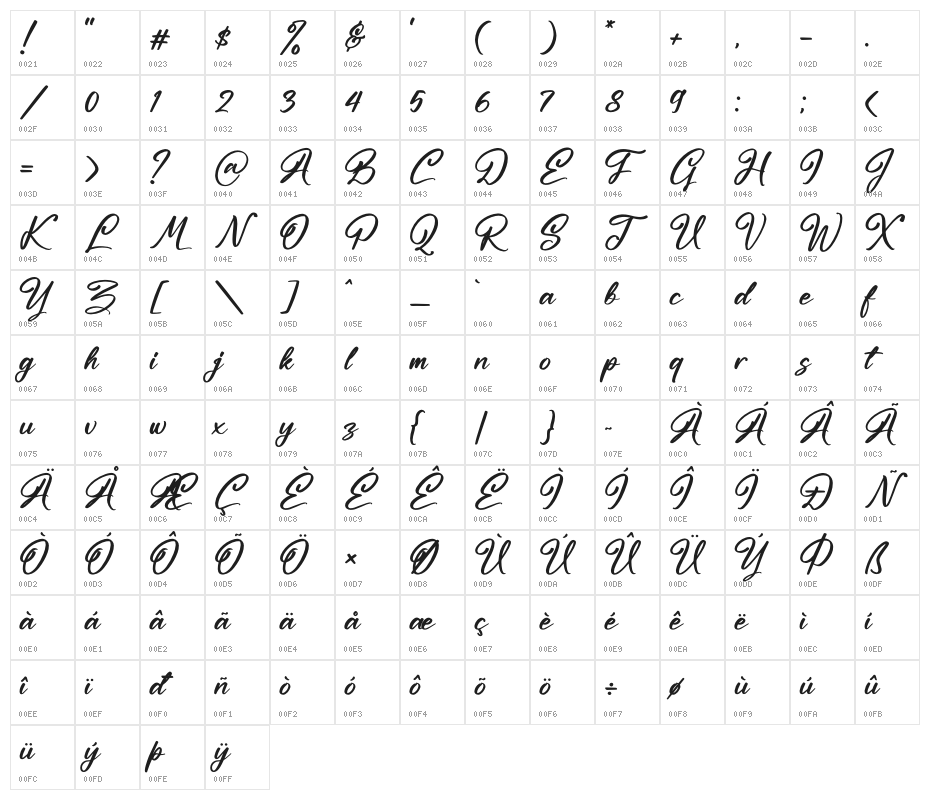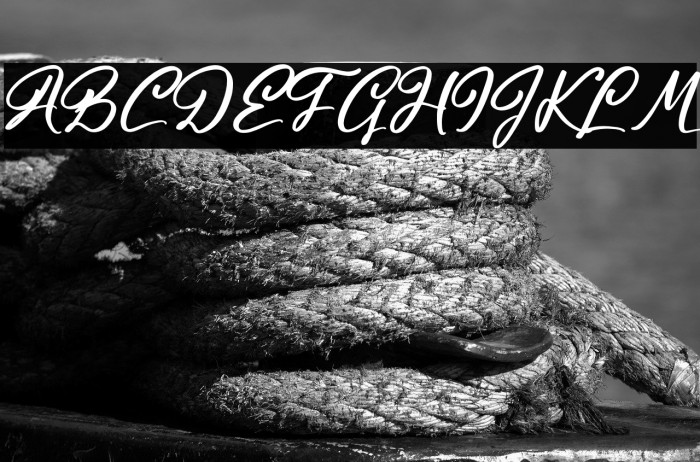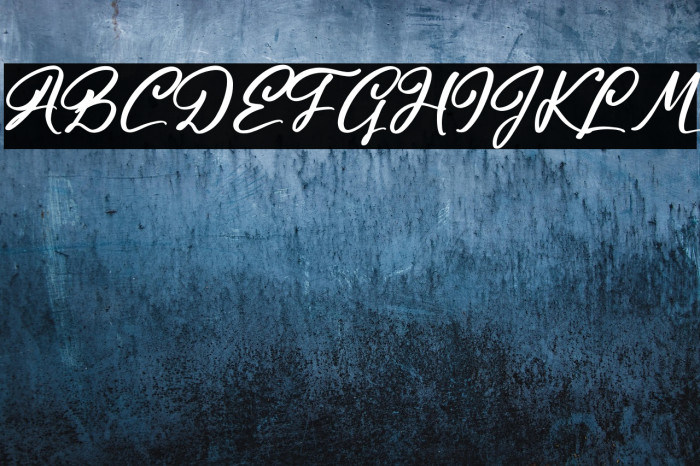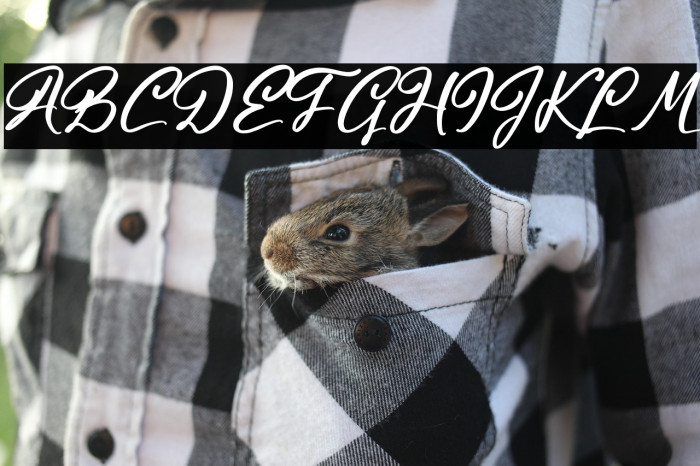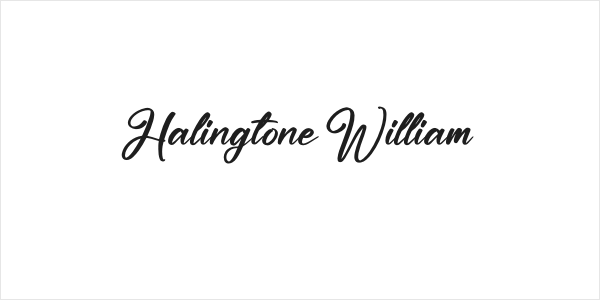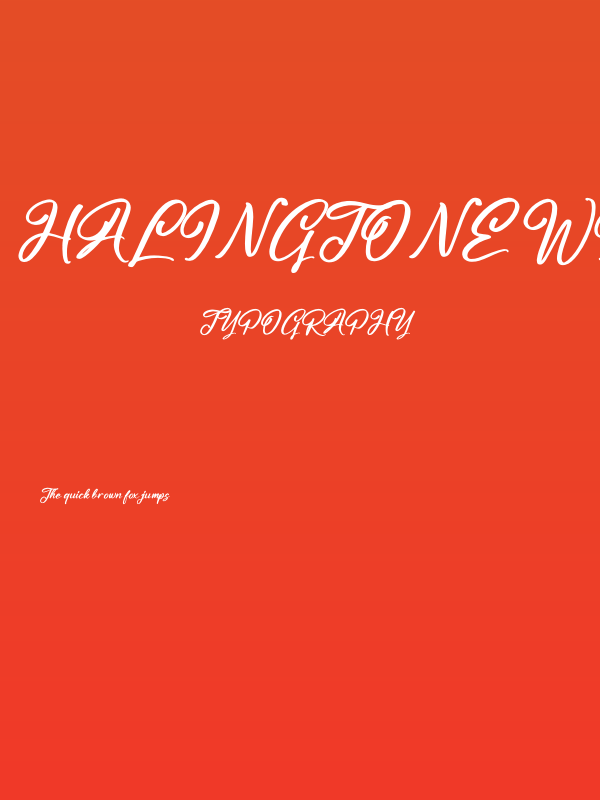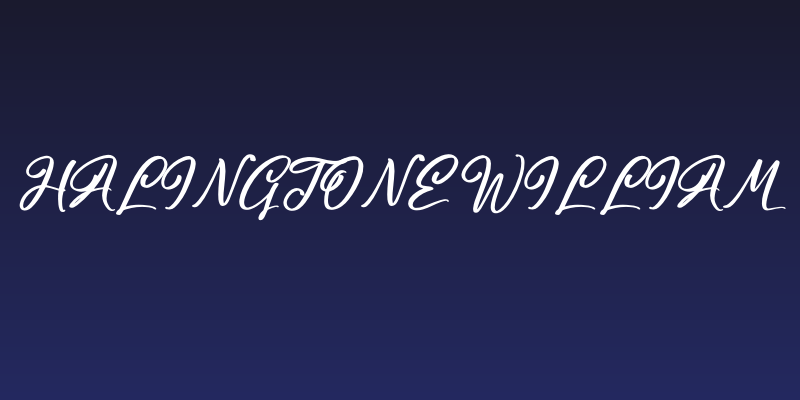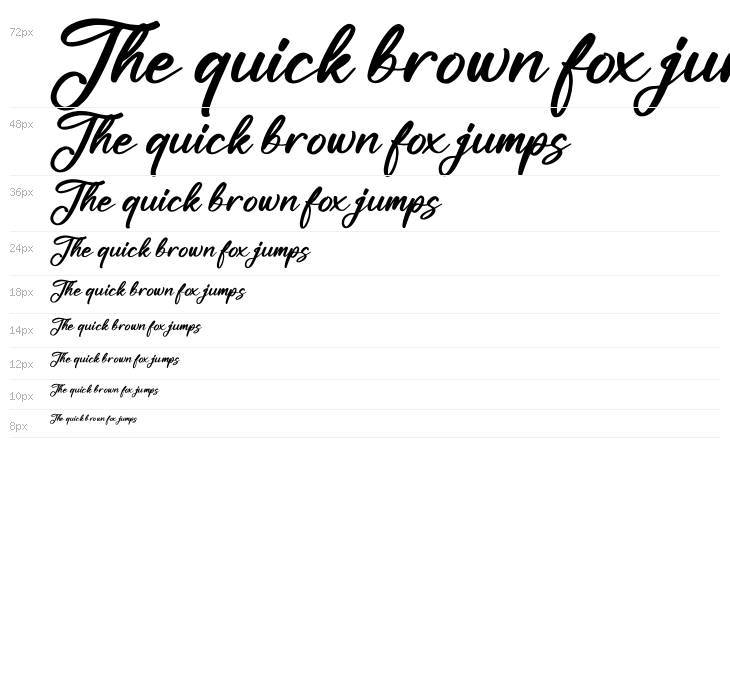
Halingtone William Font
Halingtone William Description
This font exudes a classic and elegant script style, characterized by its flowing, cursive letterforms. The uppercase letters are gracefully connected, while the lowercase letters maintain a consistent and smooth flow. The numerals are stylishly integrated, complementing the overall aesthetic. Special characters are designed with flair, adding to the font's decorative appeal. The strokes are bold and confident, providing a strong visual impact while maintaining readability. This font is perfect for projects that require a touch of sophistication and elegance.